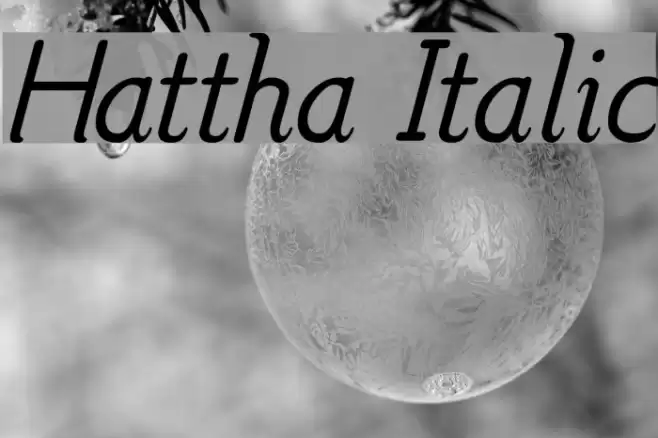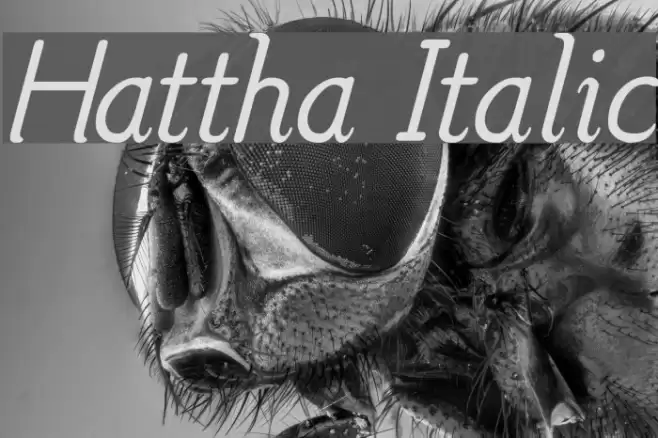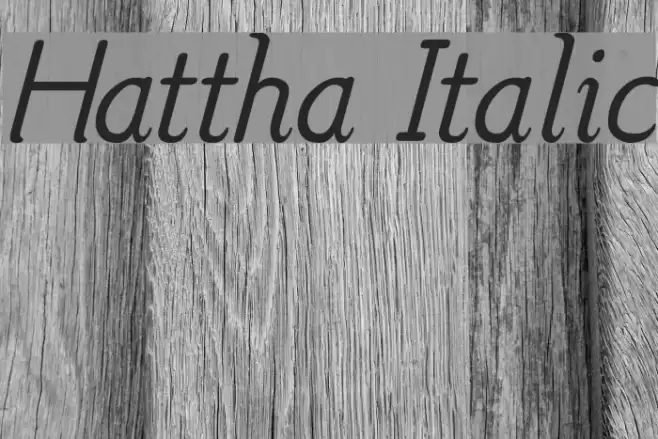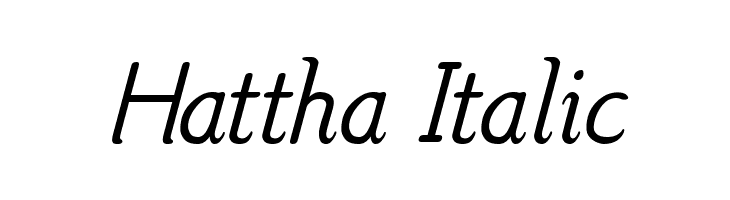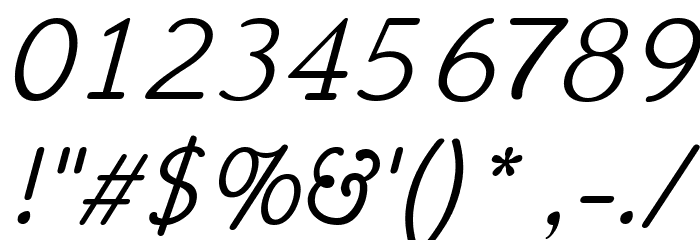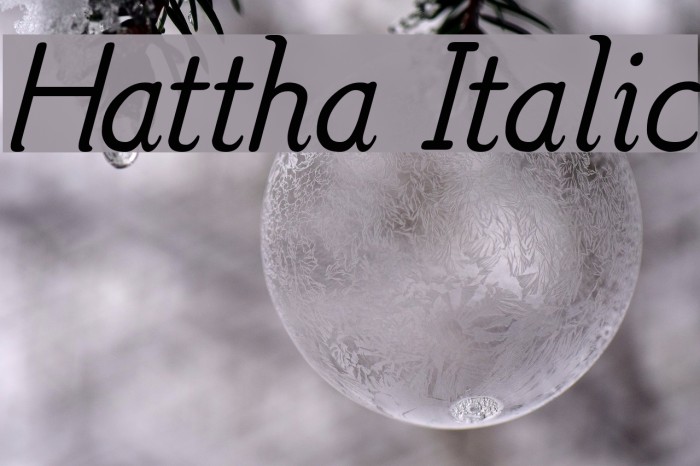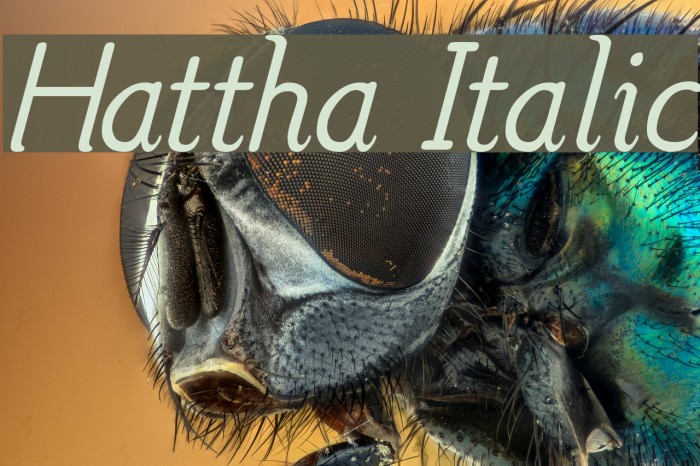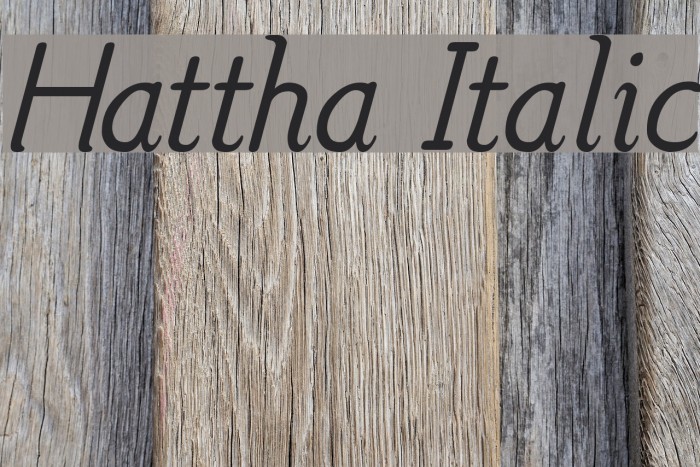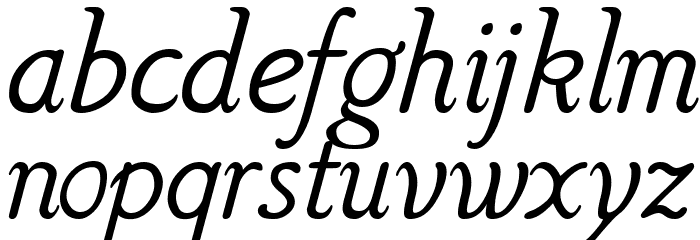
Hattha Italic Font
Hattha Italic Description
This font features a classic italic style with smooth, flowing curves and a slight slant to the right, giving it an elegant and sophisticated appearance. The uppercase letters are tall and slender, while the lowercase letters maintain a consistent and harmonious flow. The numerals are clear and well-defined, matching the overall style of the alphabet. Special characters are included, maintaining the same elegant design. The font's design is suitable for conveying a sense of formality and grace, making it ideal for projects that require a touch of elegance.
An elegant italic font with smooth curves and a sophisticated style from Uncategorized fonts.
- Proposed Projects: Ideal for wedding invitations, formal event programs, elegant branding, and sophisticated editorial design.
- Overall Style: Classic
- Use Case: Headlines, Invitations, Branding